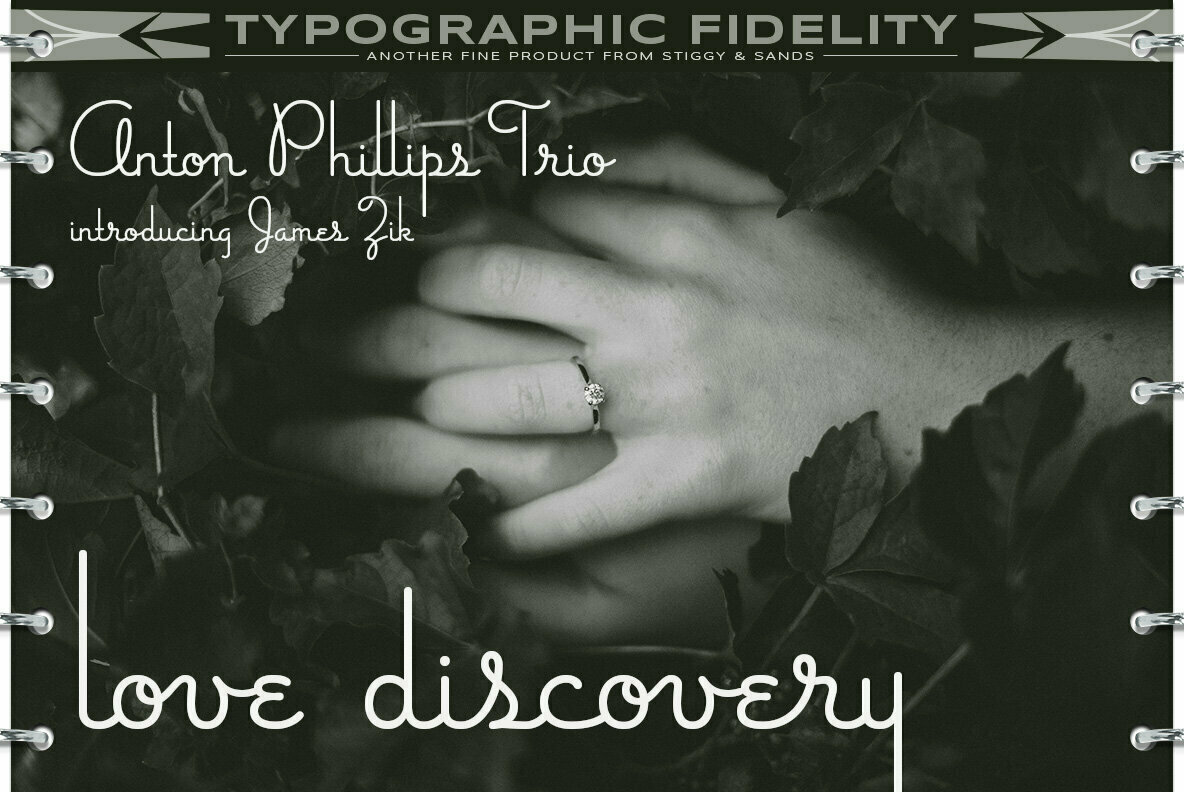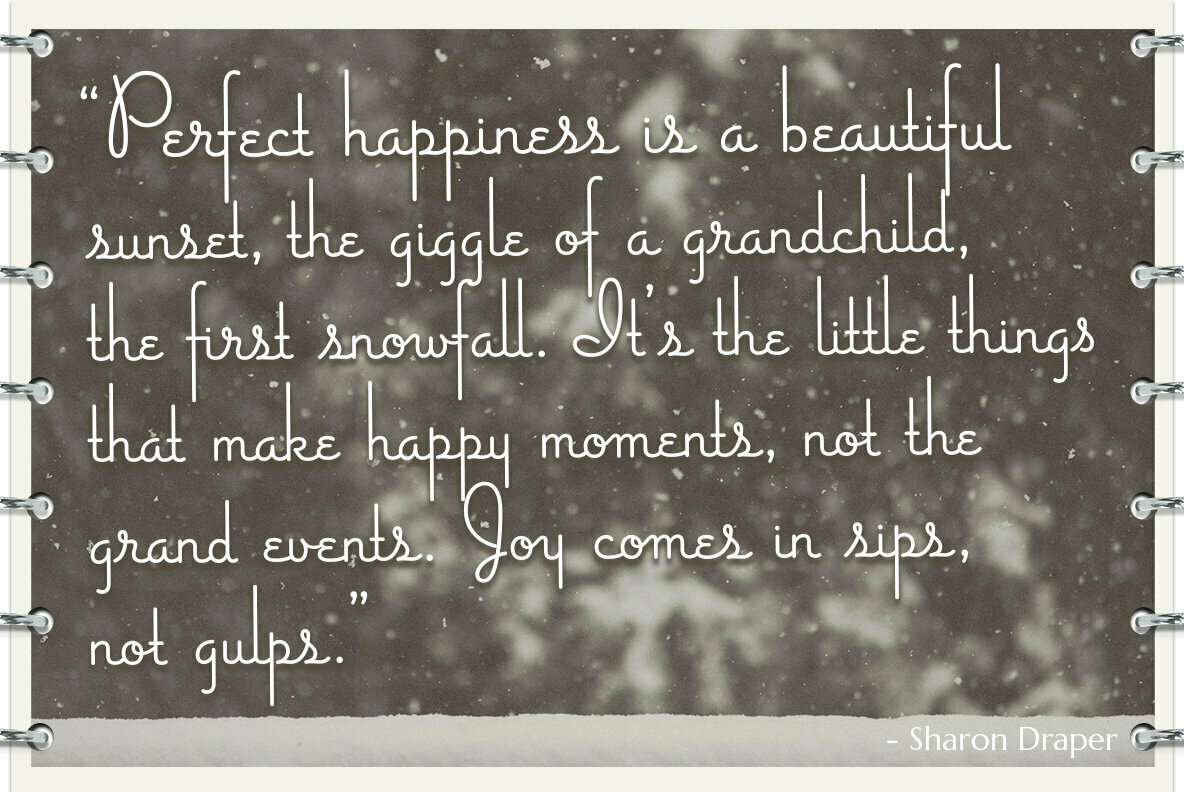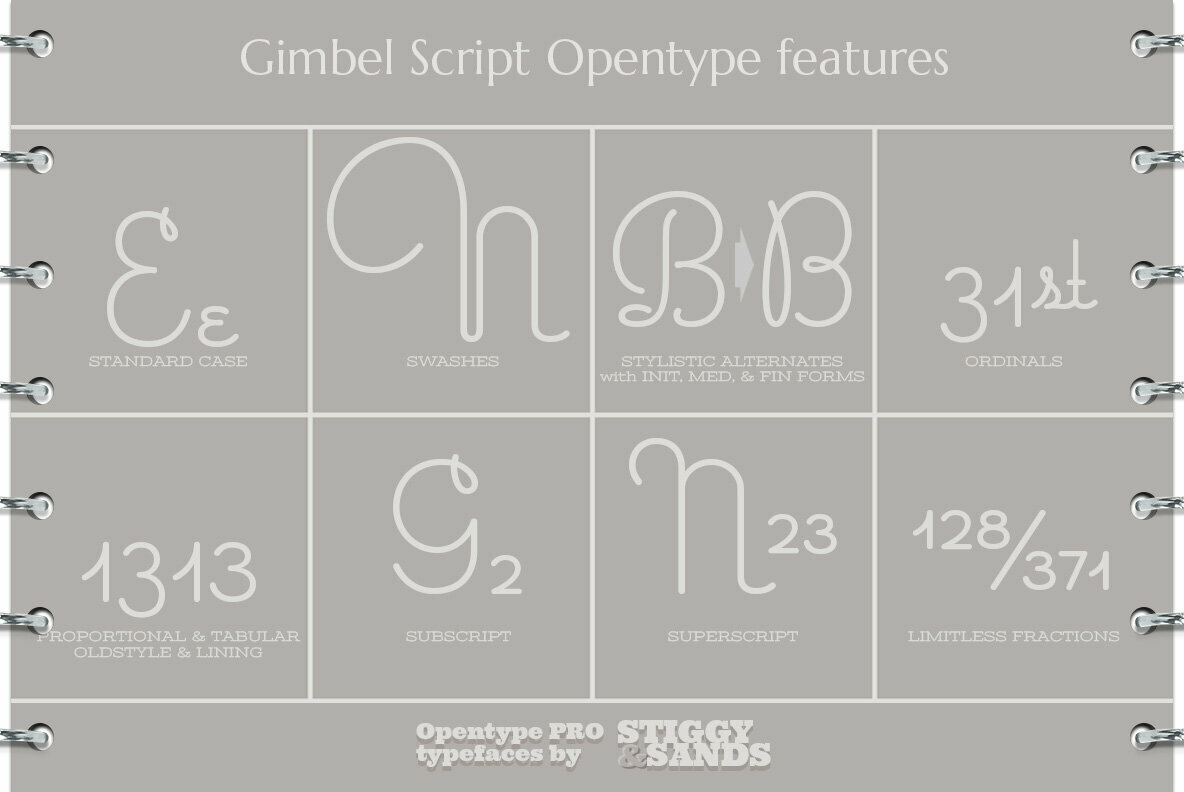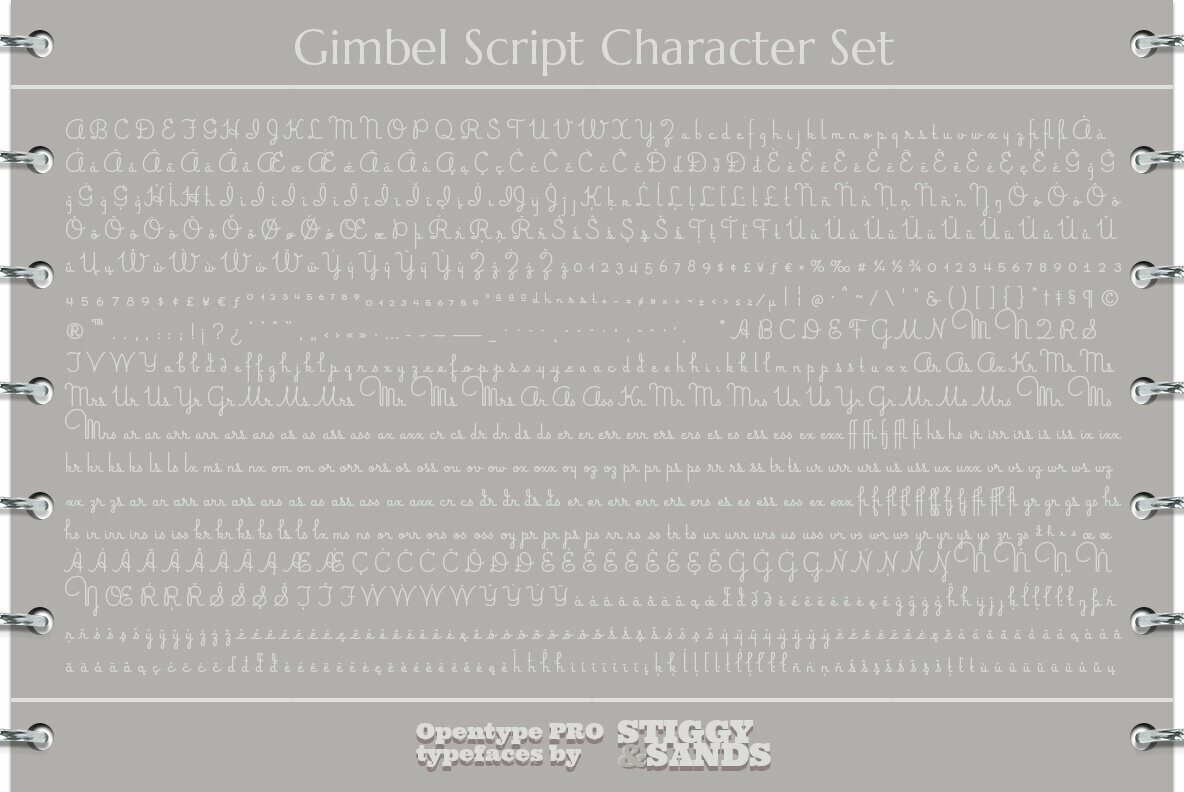
Gimbel Script Font
Gimbel Script
The Gimbel Script typeface was inspired by a monoline, semi-connected script from a 1930's holiday greeting card. From its ascenders and descenders that stretch high and low to its gentle curviness Gimbel Script exudes the elegance of a bygone era while standing on a thin line between formal and casual lettering styles.
Gimbel Script Opentype features include:
- Swash Alternates for an alternate M and N.
- Stylistic Alternates & SS01-SS06 Stylesets for 151 varying forms.
- 219 Ligatures for a smoother typesetting experience, along with 181 initial, middle and final forms.
- Full set of Inferiors and Superiors for Limitless Fractions.
- Proportional, Tabular and Oldstyle figure sets.